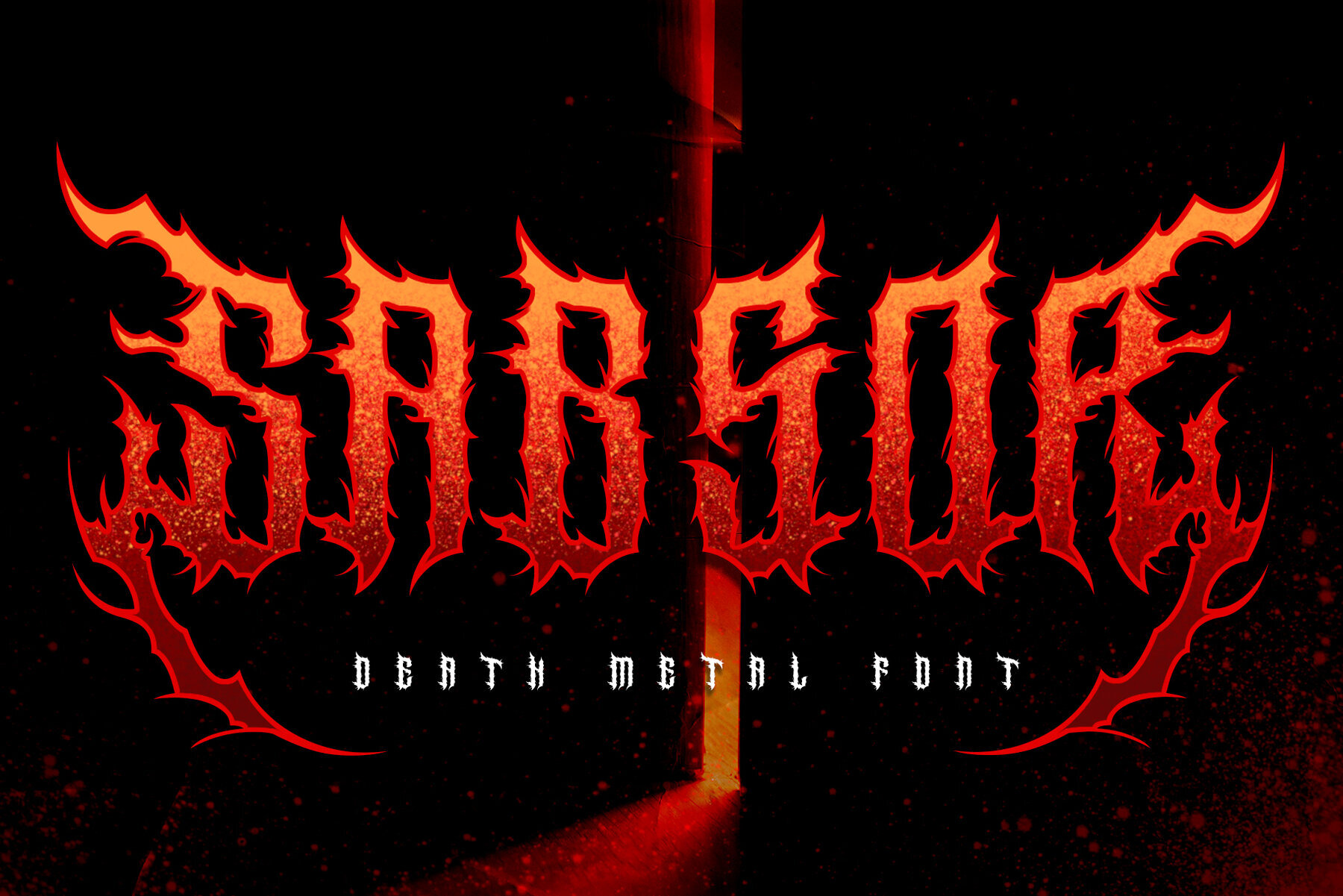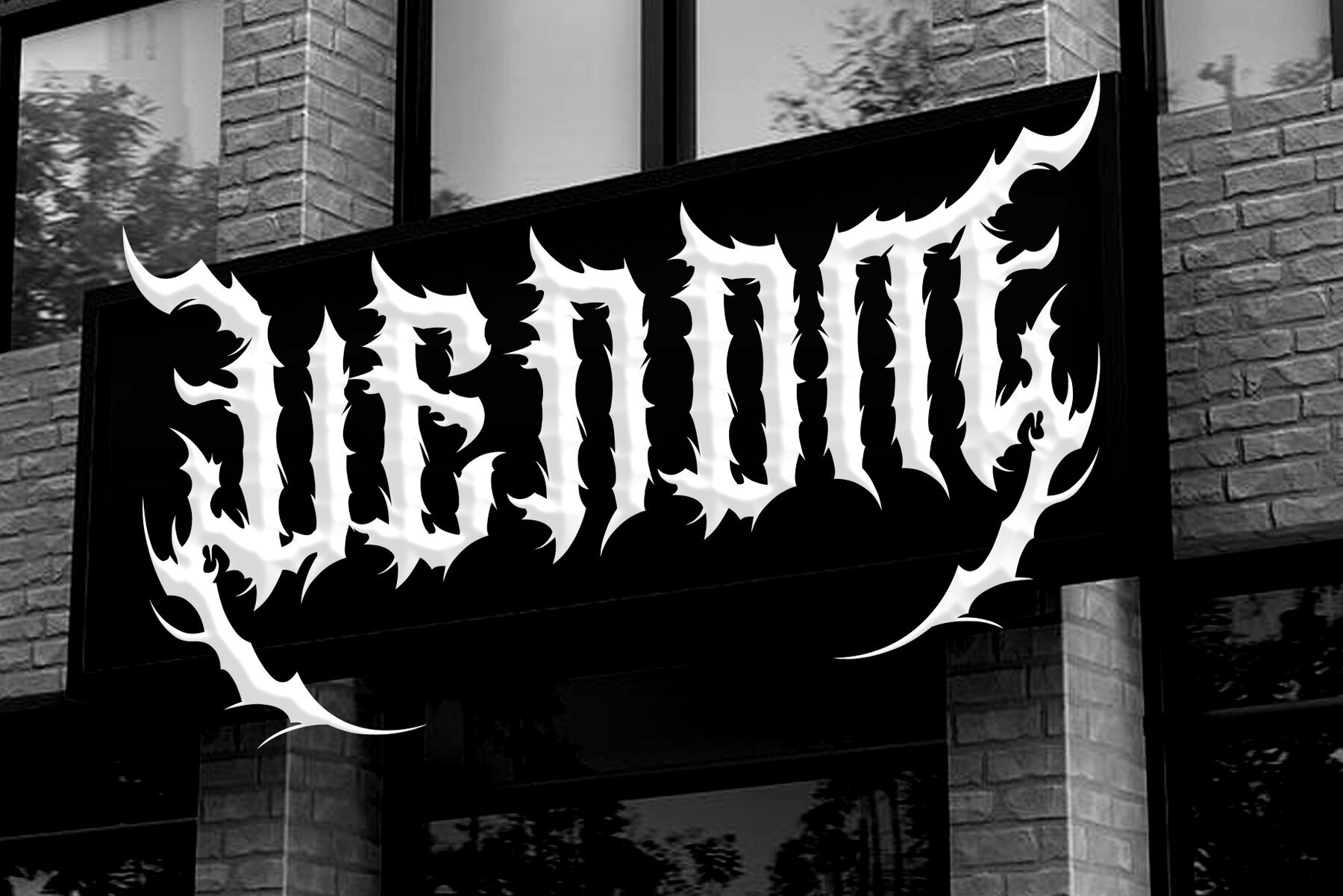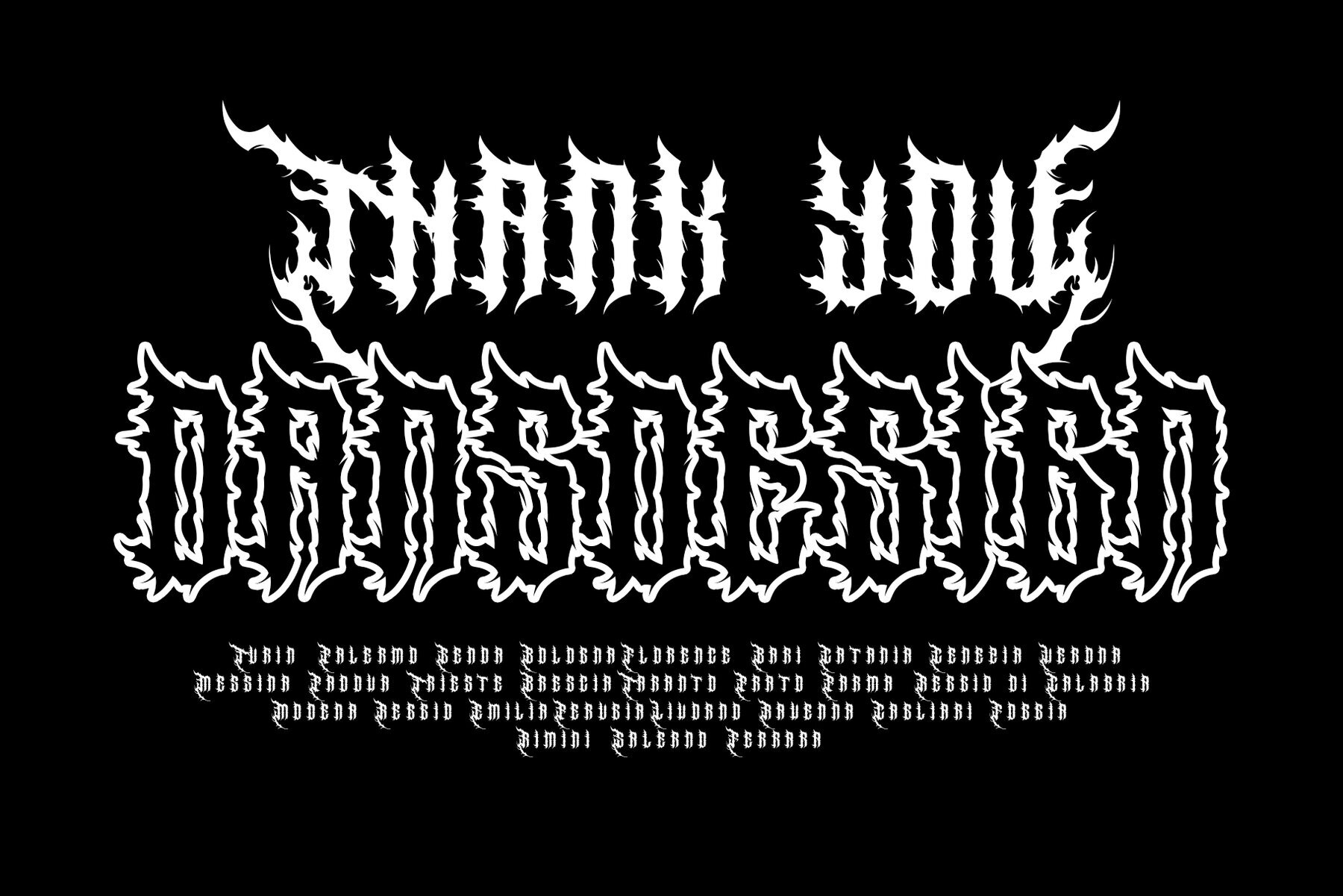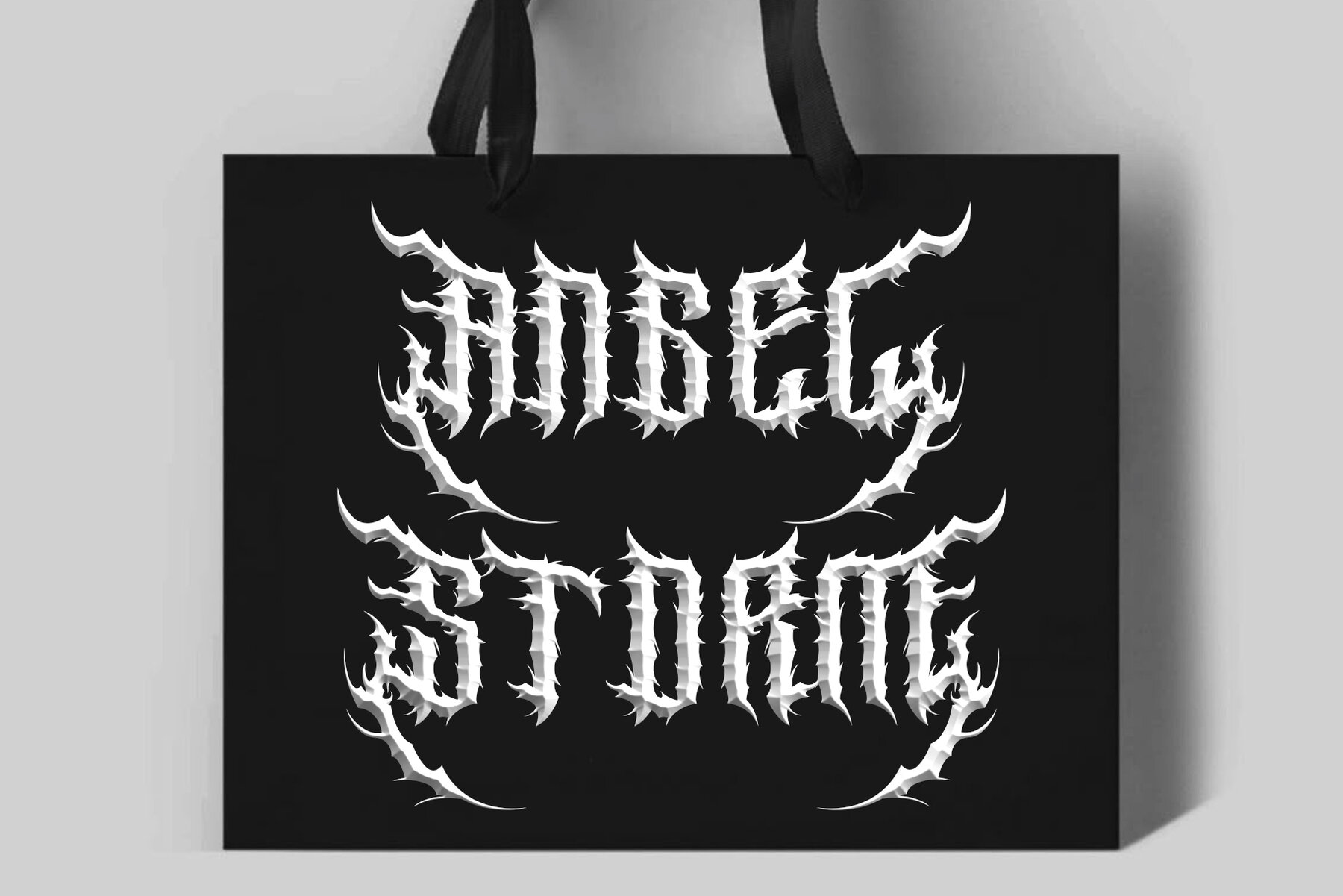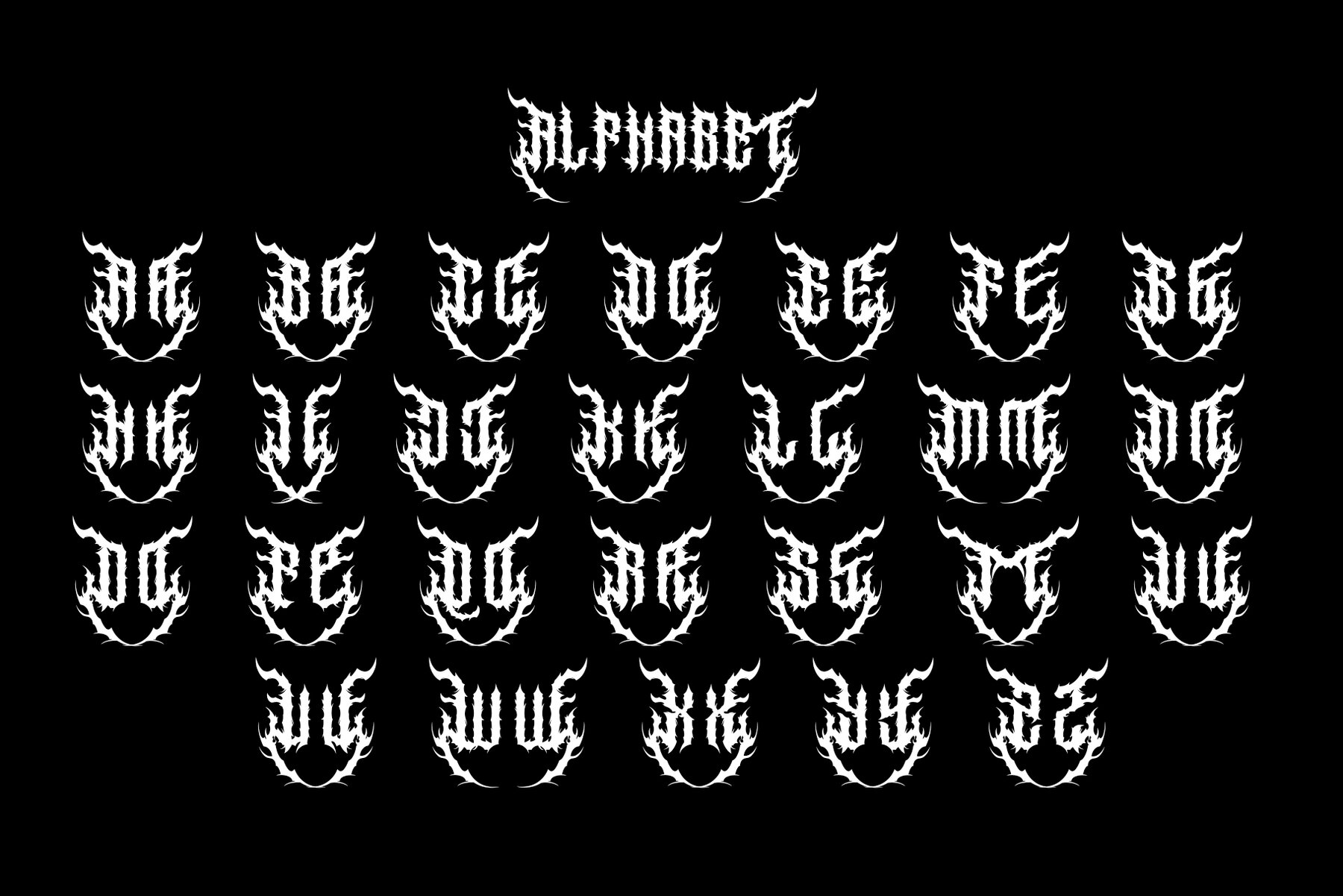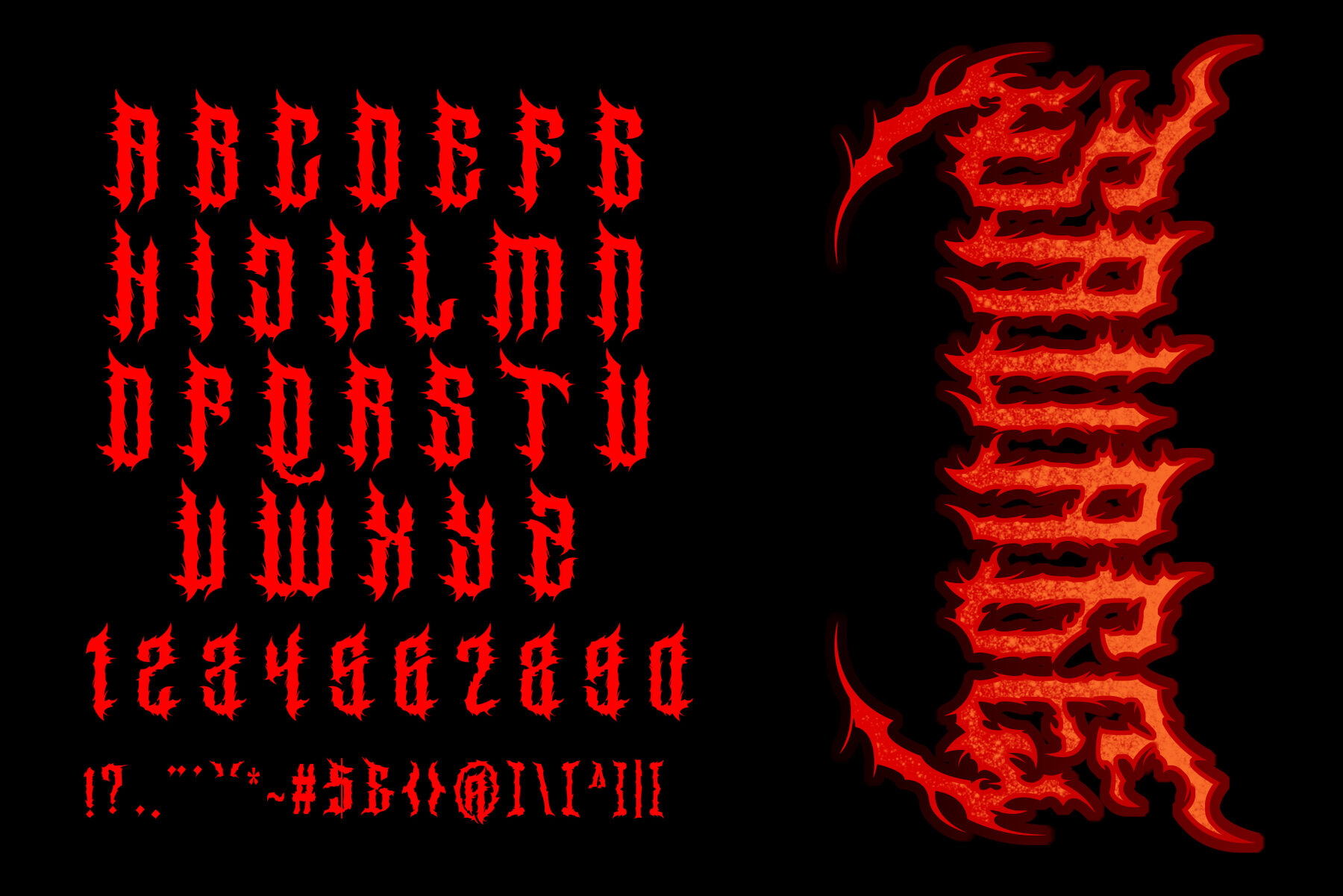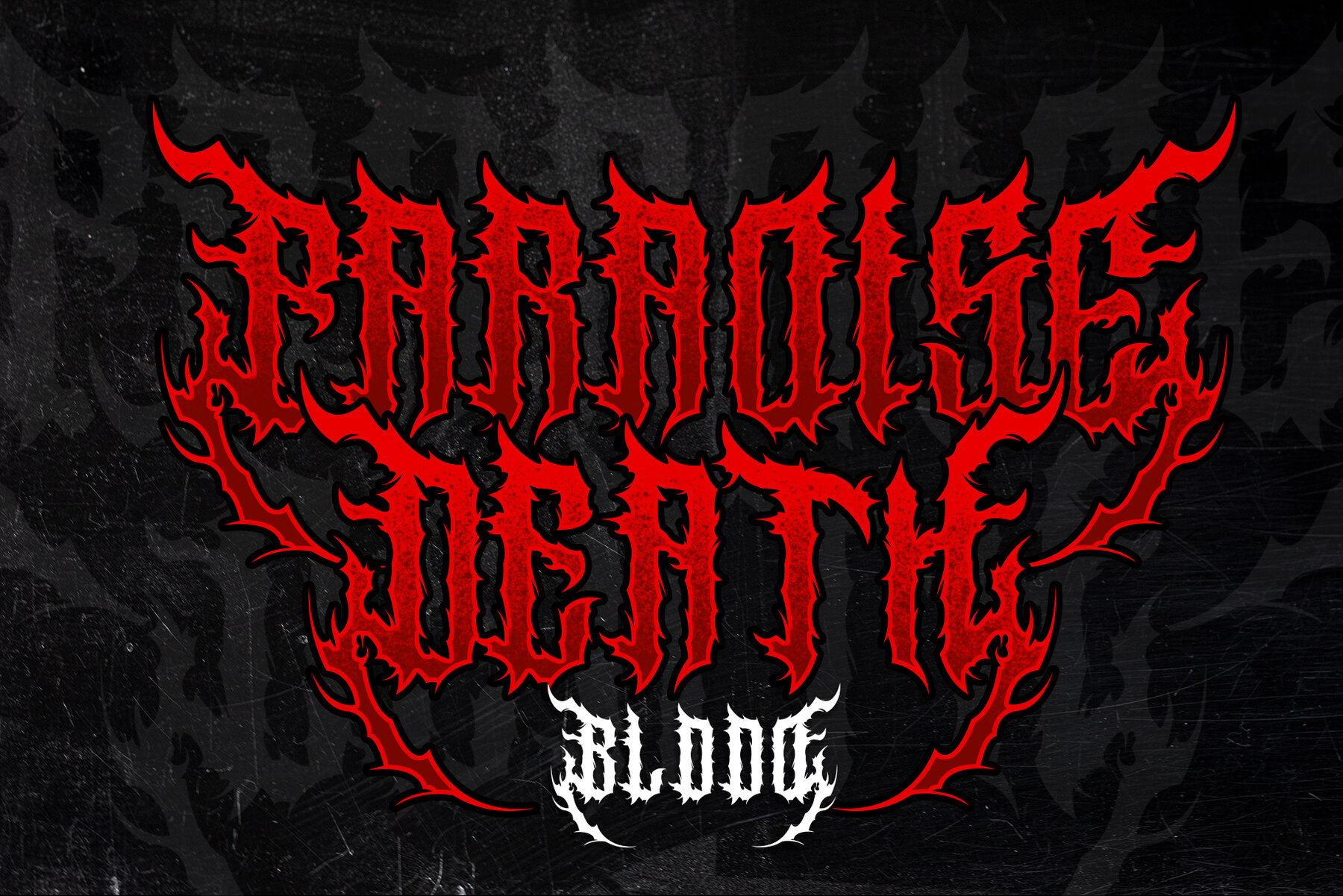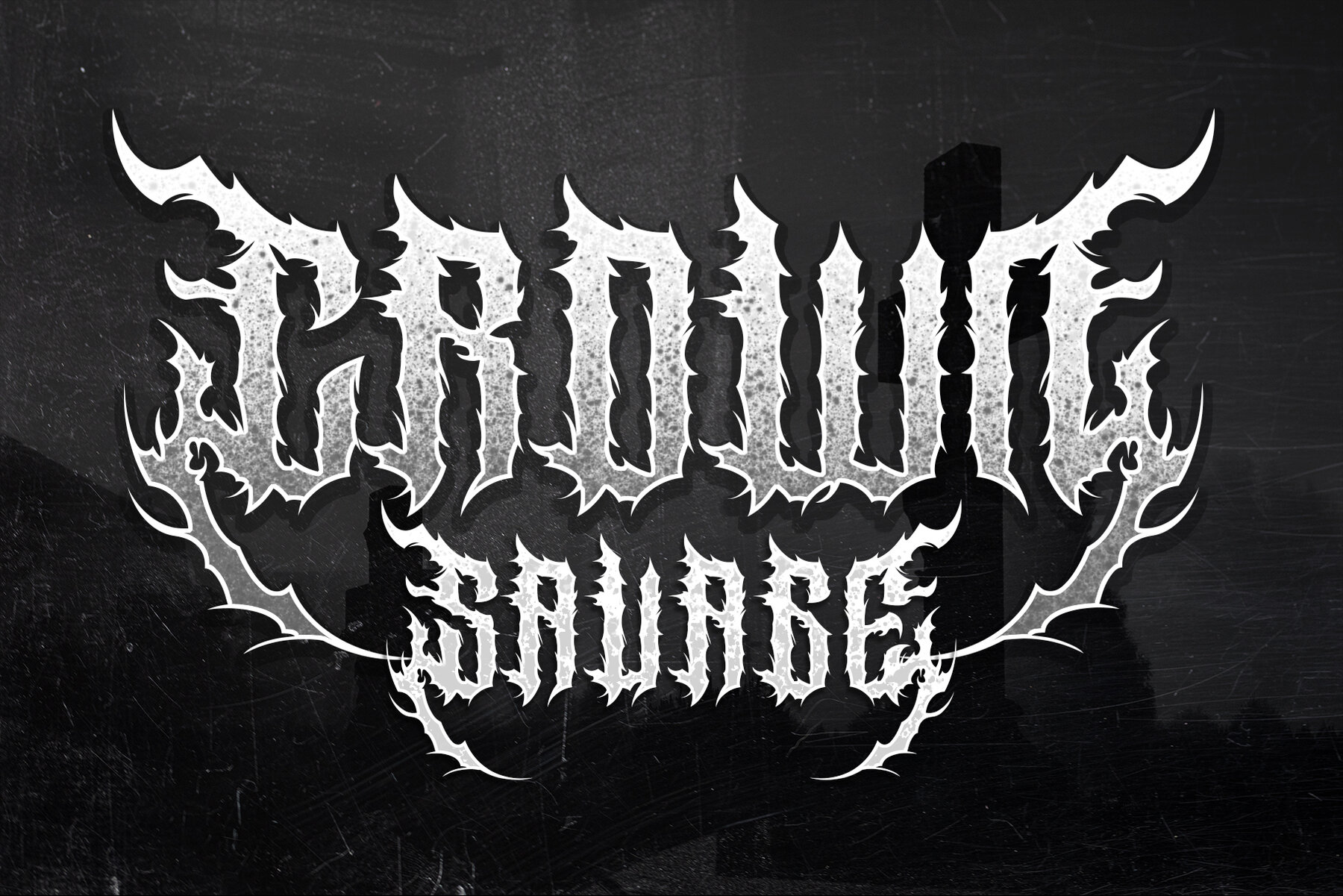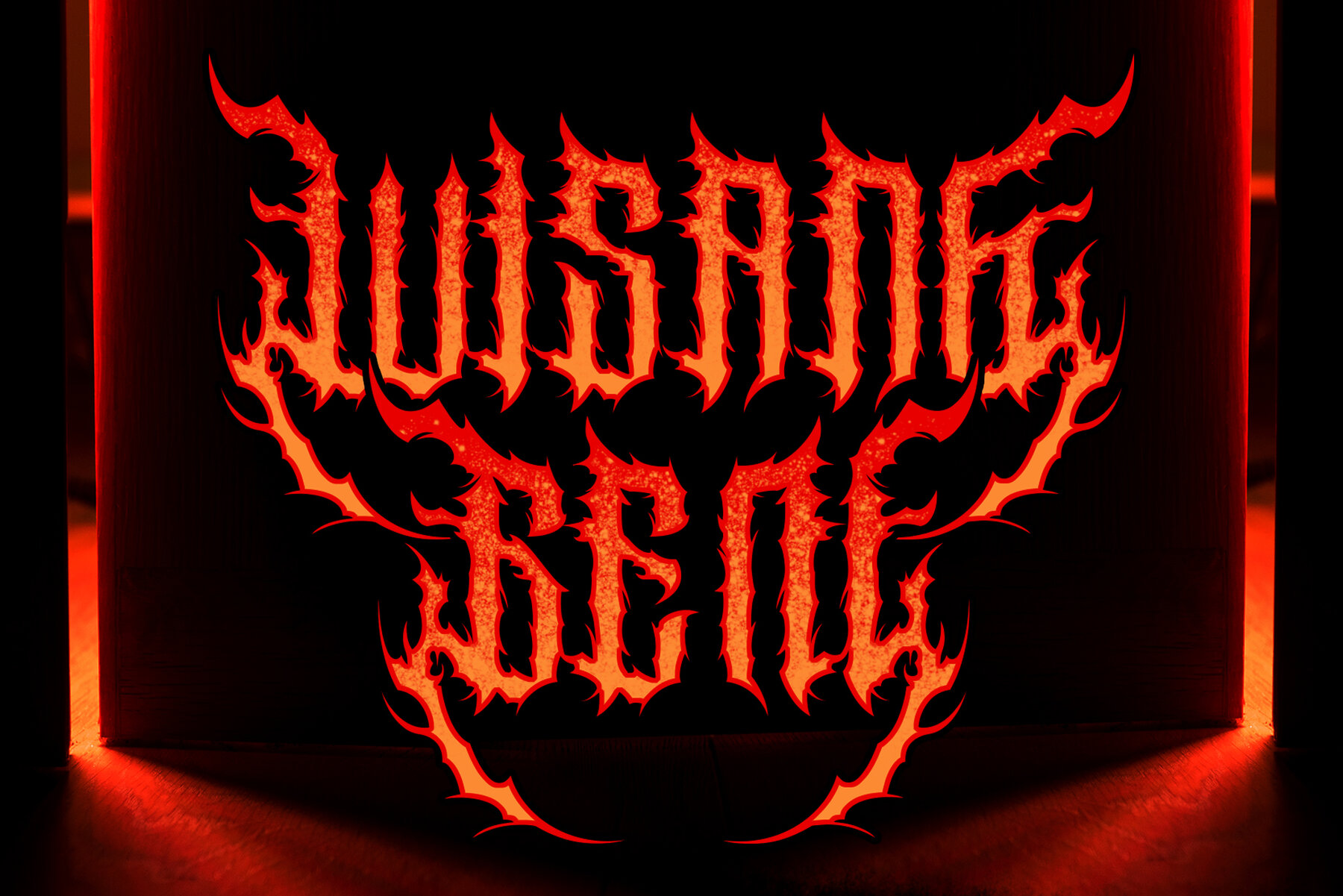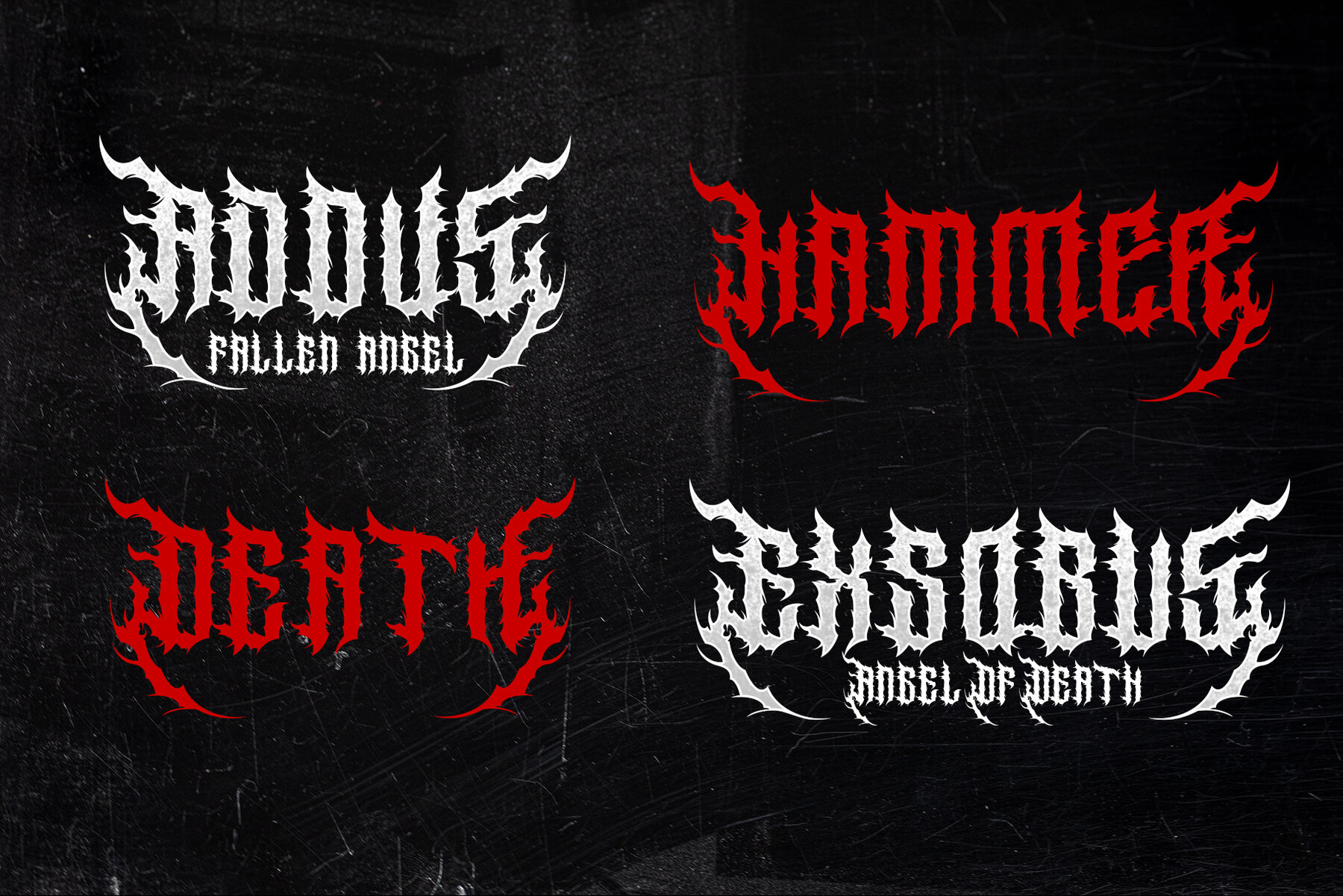
SabsoR Font
SabsoR
SabsoR is a powerful gothic typeface that fuses the harshness of heavy metal with the dark elegance of blackletter design. With sharp strokes, distorted shapes, and intense details, this font sets an eerie and aggressive tone, perfect for projects needing a bold visual impact. SabsoR exudes a dramatic and rebellious character that demands attention. Its handcrafted style and intricate gothic elements are ideal for designers wanting to convey darkness, strength, and attitude. Complete with uppercase, lowercase, numbers, punctuation, and multilingual support (PUA encoded), it offers flexibility for both print and digital mediums. Whether designing for music, horror, or alternative culture, SabsoR provides a sinister and unforgettable edge to your creations.SabsoR: Metal Horror Font